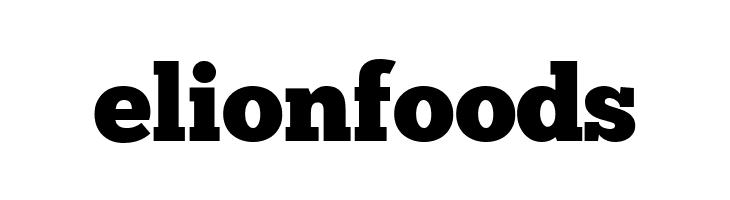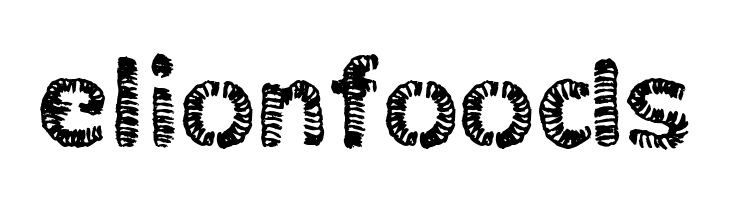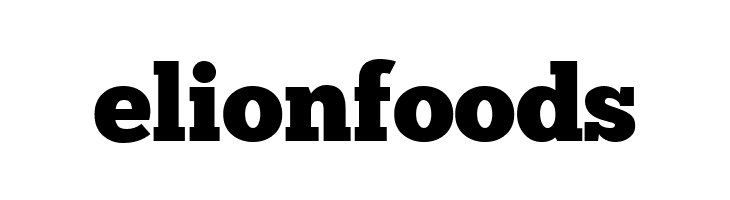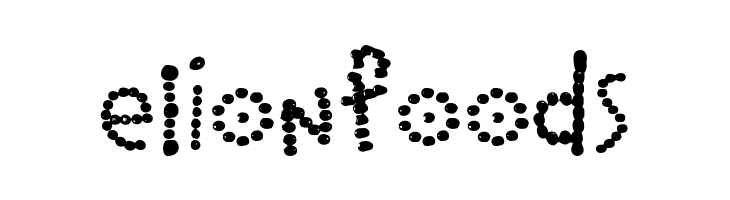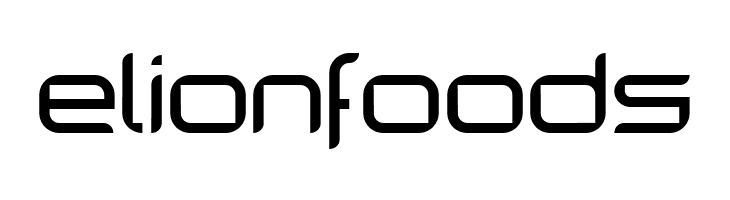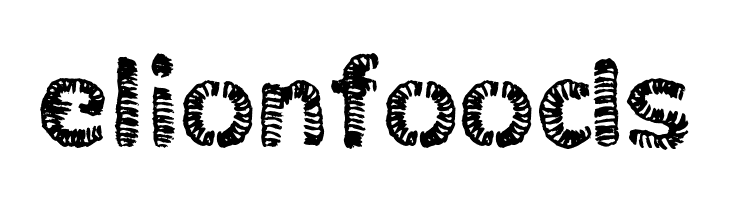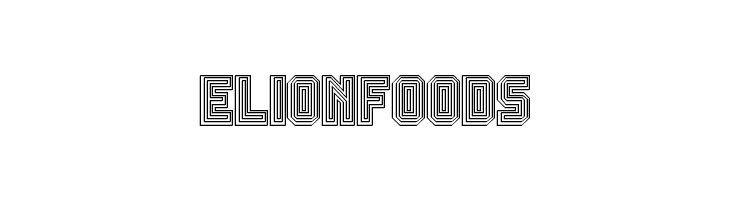
( Alexander Kominek - fontstruct.fontshop.com/fontstructors/lexkominek )
A bold, geometric font with a stacked, three-dimensional appearance.
( CROLrene )
A festive, gift box-themed font with bold, geometric characters and ribbon accents.
( JOEBOB graphics - Joe vanderHam - www.joebob.nl )
A bold, textured, and playful font with a hand-drawn aesthetic.
( Fonts by Chank Co. - www.chank.com )
A playful, dot-based font with a whimsical and textured appearance.
( Fonts by The League of Moveable Type - theleagueofmoveabletype.com )
A bold, slab serif font with strong, thick strokes for impactful designs.
A bold, slab serif typeface with strong, geometric shapes.
A bold, slab serif font with a strong, vintage aesthetic.
A modern, geometric font with a futuristic and sleek design.